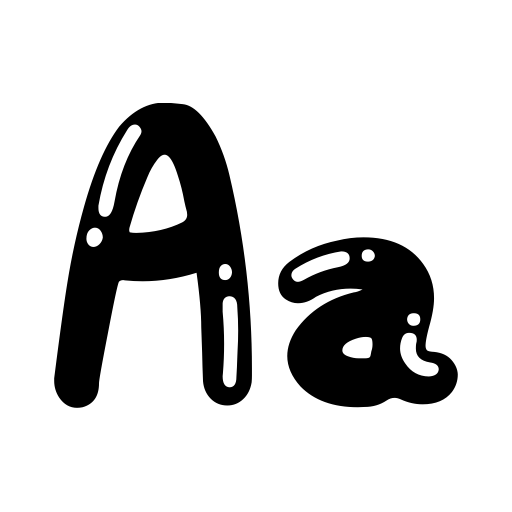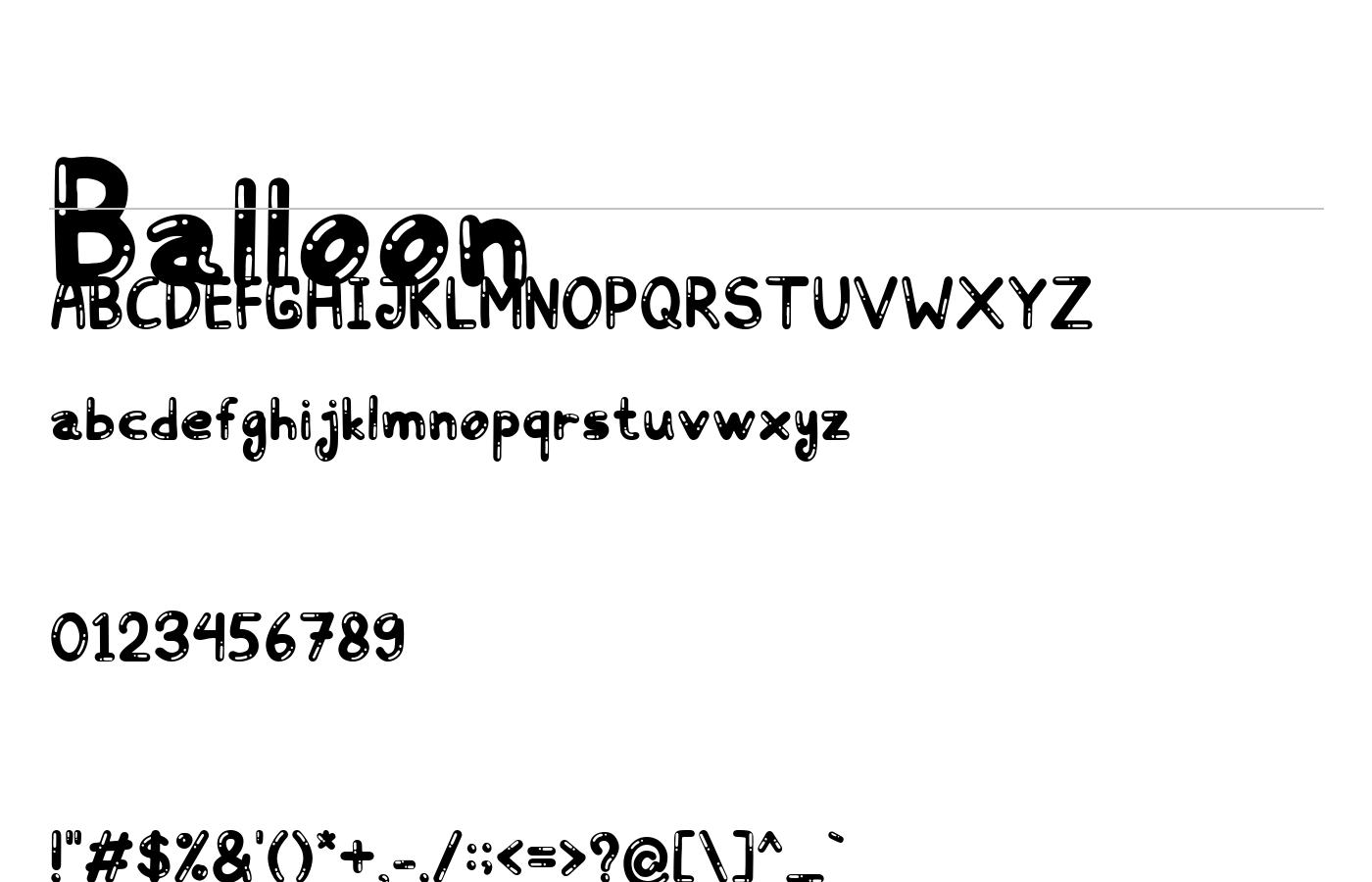
Balloon Font is a playful, rounded sans serif typeface characterized by its chunky, inflated letterforms that resemble balloons. Its irregular, whimsical shapes with soft edges give it a fun, childlike personality, making it ideal for casual, creative designs such as party invitations, children's books, and playful branding. This font's friendly and bold style works best in headlines and display uses where a lively and approachable tone is desired.
Balloon Font
About Balloon Font
| Font family | Balloon Font |
| Designer | NI LUH PURNAMAWATI |